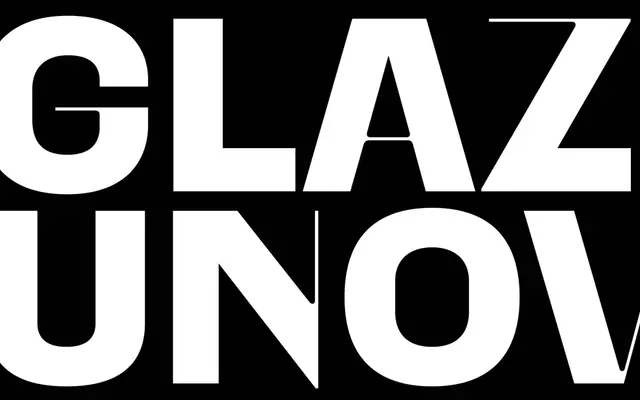
Stravinsky
A display typeface that grafts Didot-era vertical contrast and squarish counters onto a grotesque sans structure, yielding something deliberately unstable in character.
Six weights from Extralight to Extrabold give it range across headline and display contexts, while OpenType alternates including optional Didot serifs and Cyrillic alternates allow the designer to dial up or down its period references. Extended Latin and Cyrillic script support broadens its reach. It can read as traditional or conspicuously contemporary depending on how it is paired and which alternates are activated.
Stravinsky fuses Didot-style vertical contrast and squarish counters with a contemporary grotesque sans-serif structure, making it a display-oriented hybrid that defies standard classification. The high contrast and experimental character place it firmly in the display category.